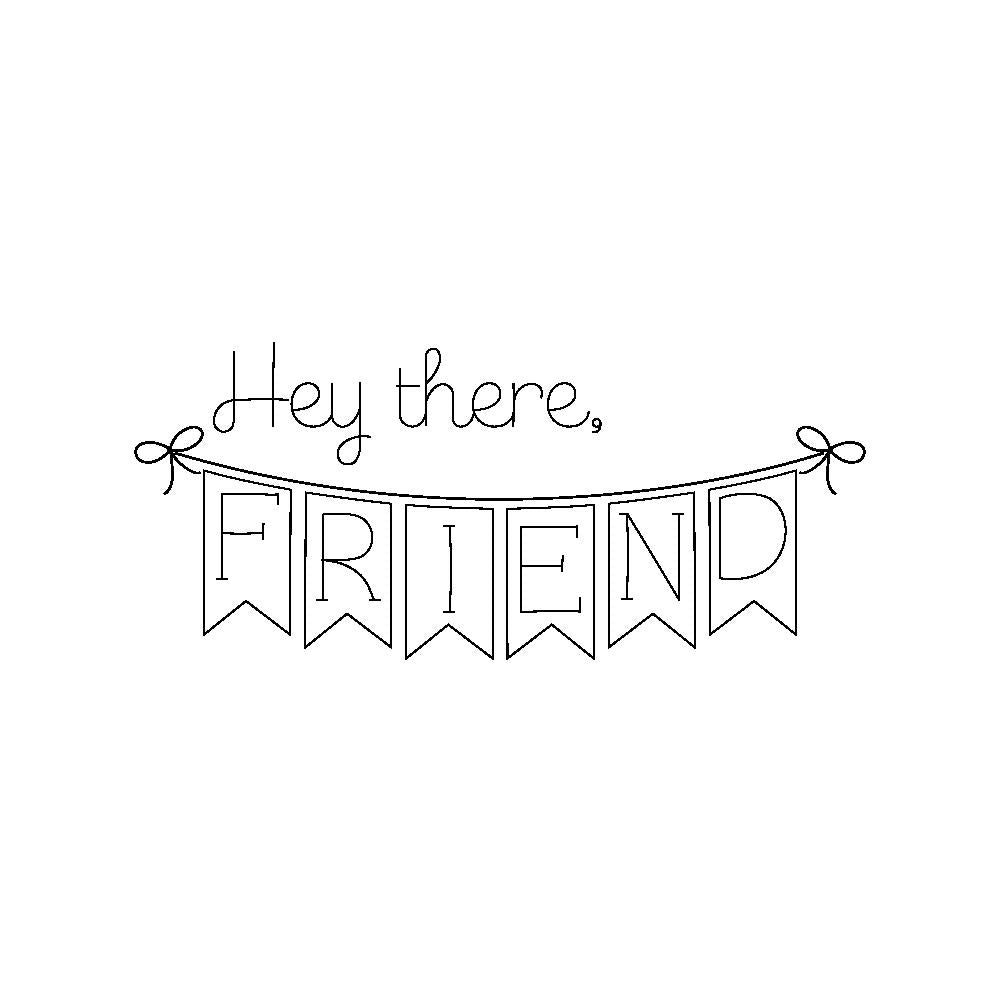
Hey There Friend
Hey There Friend single line design for use with pen tools, embossing tools, foil quill kits, etc. in personal cutting machines such as the Solo, Silhouette, and Cricut. Also beautiful when used with Glowforge printers!
These lines are hairline and are not for cutting items like vinyl or cardstock.